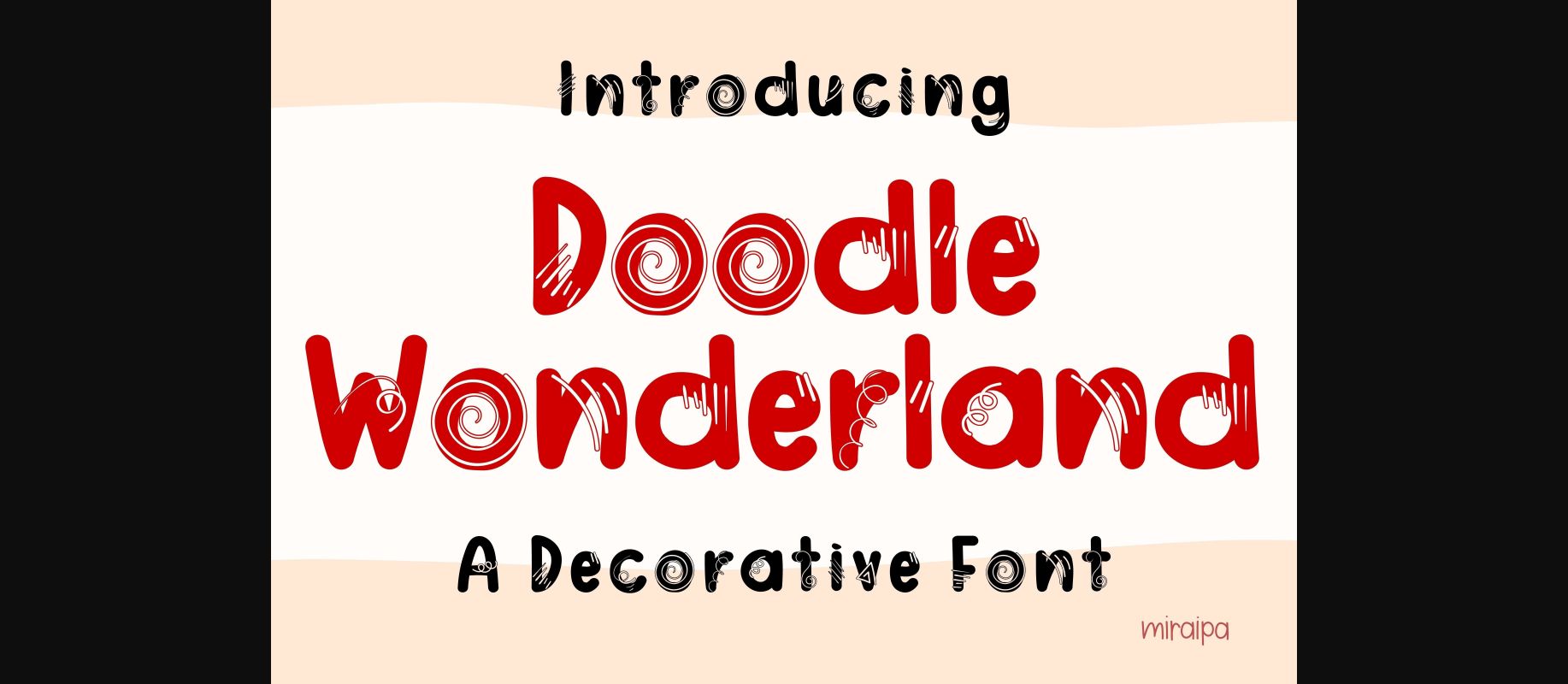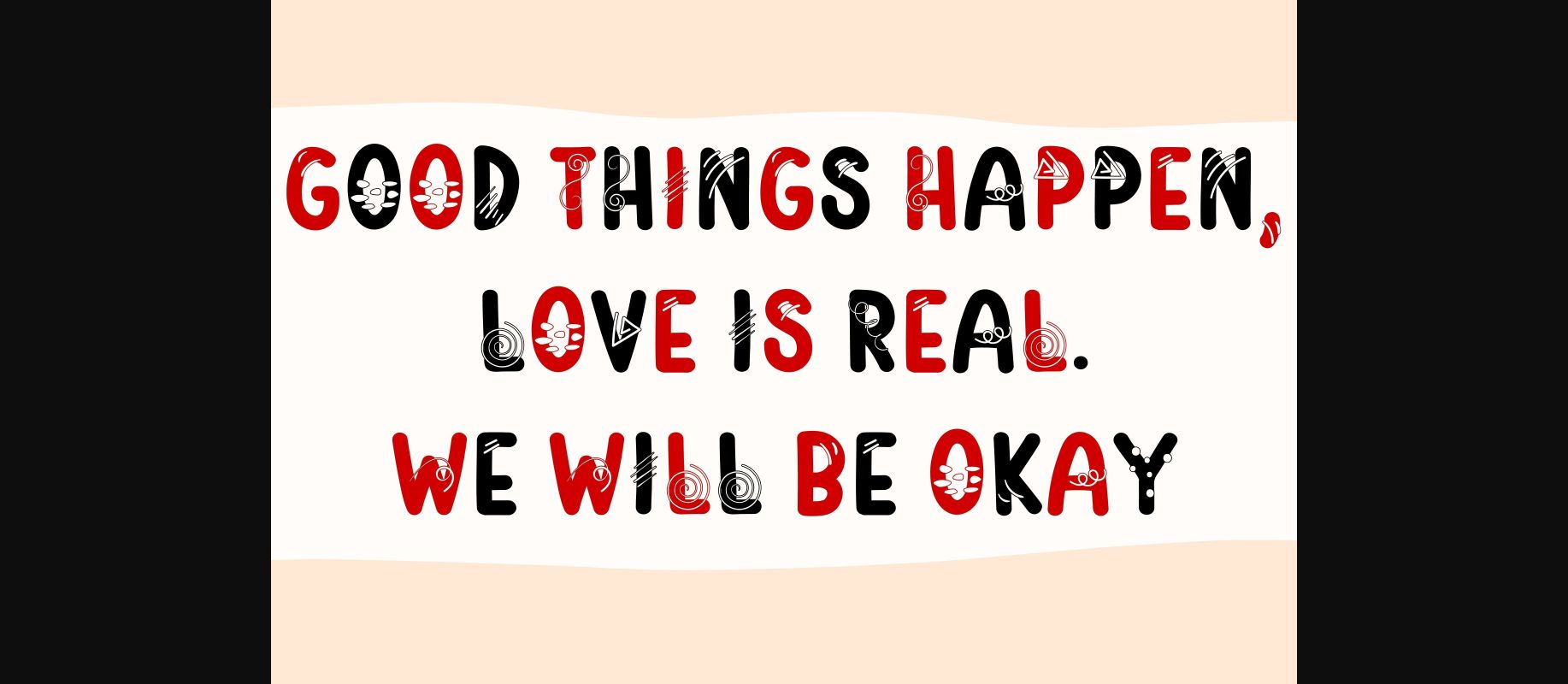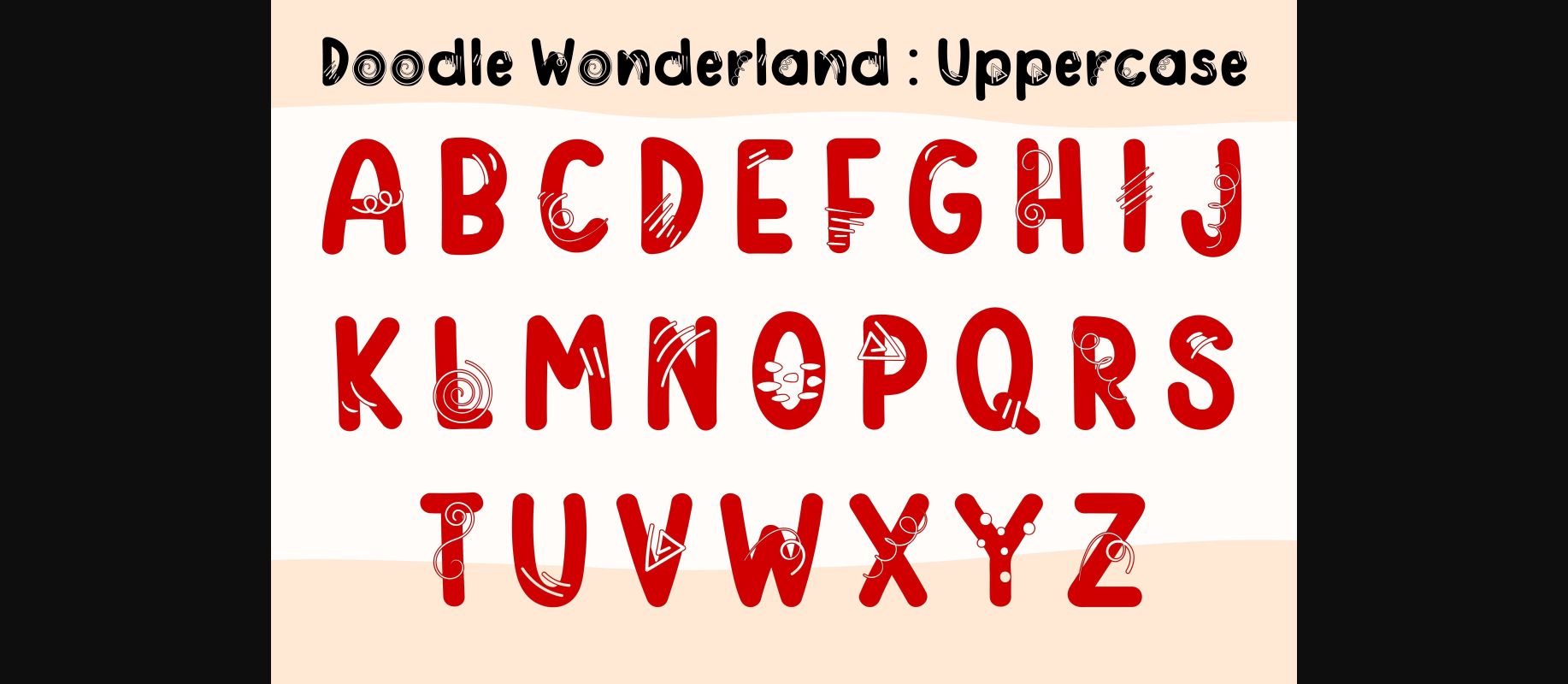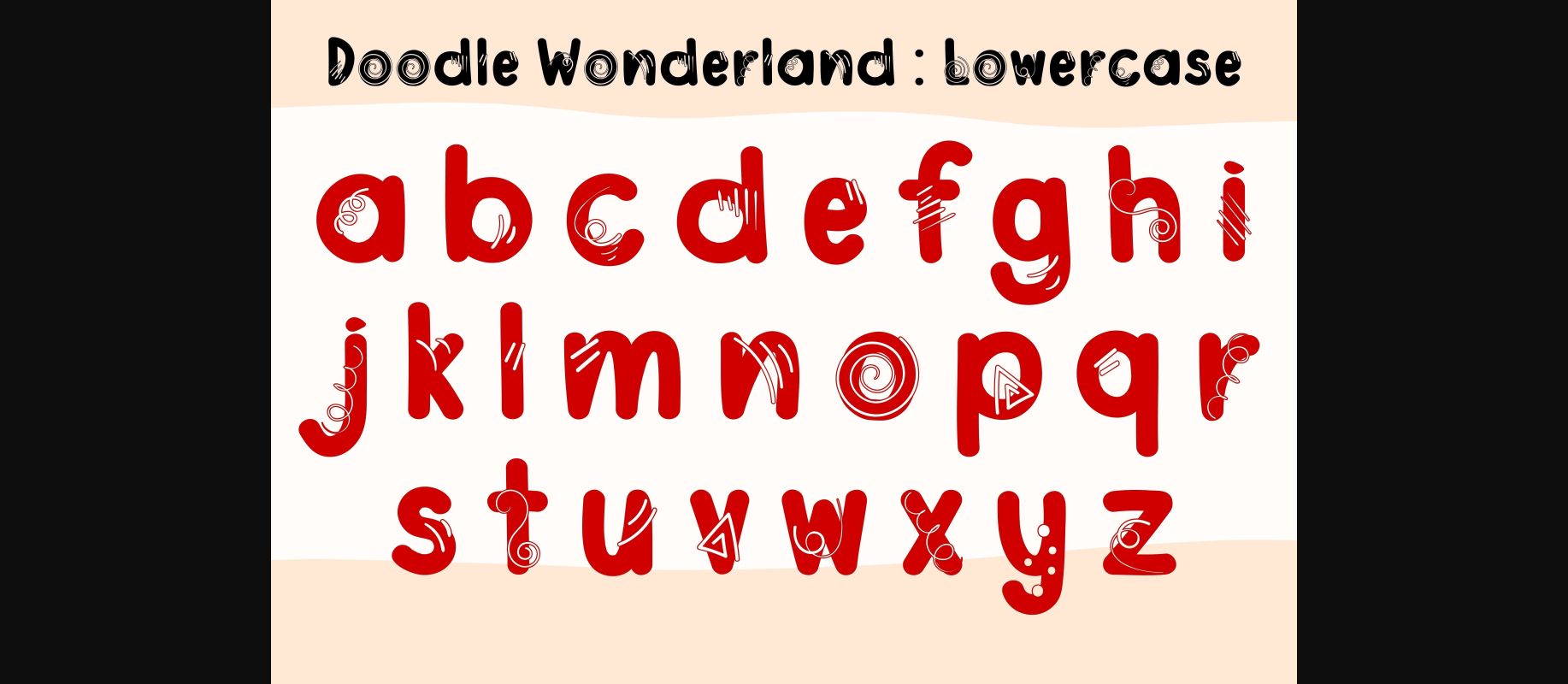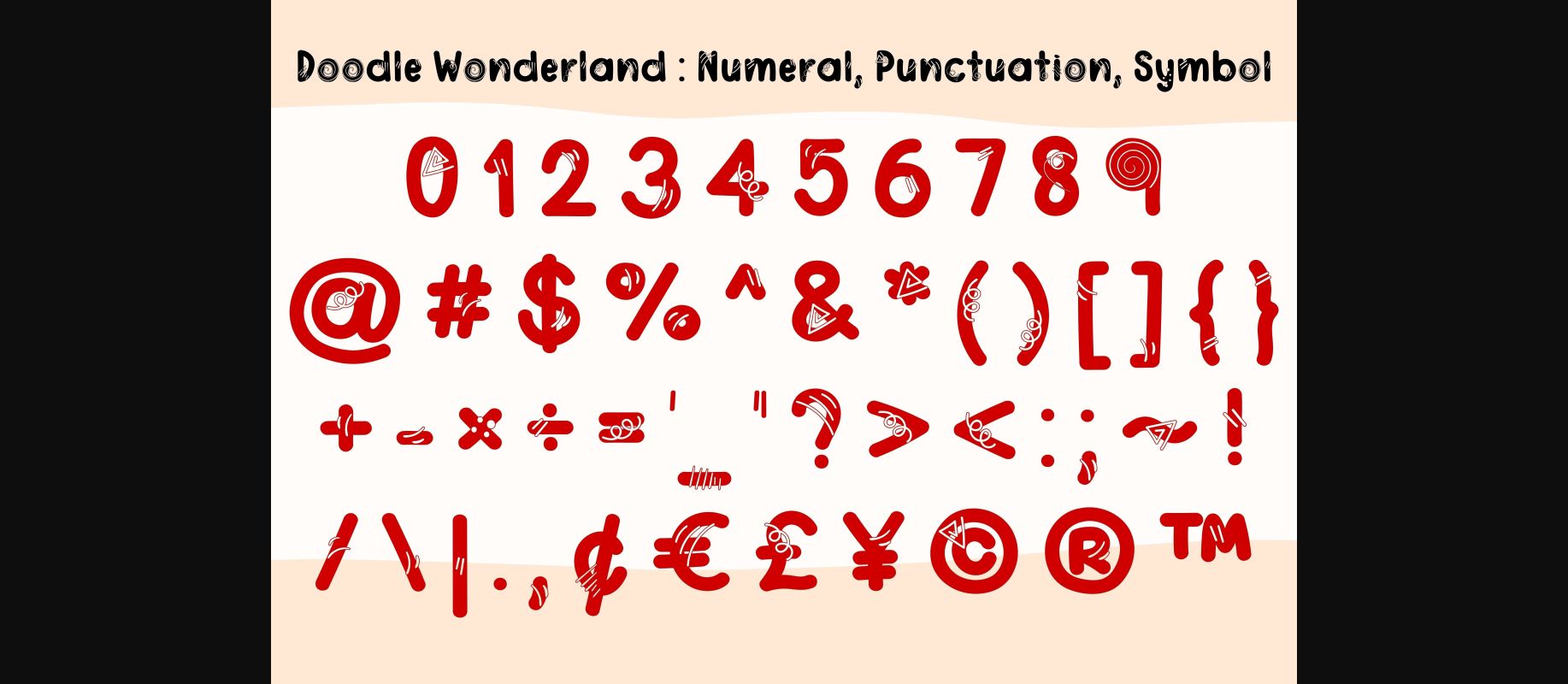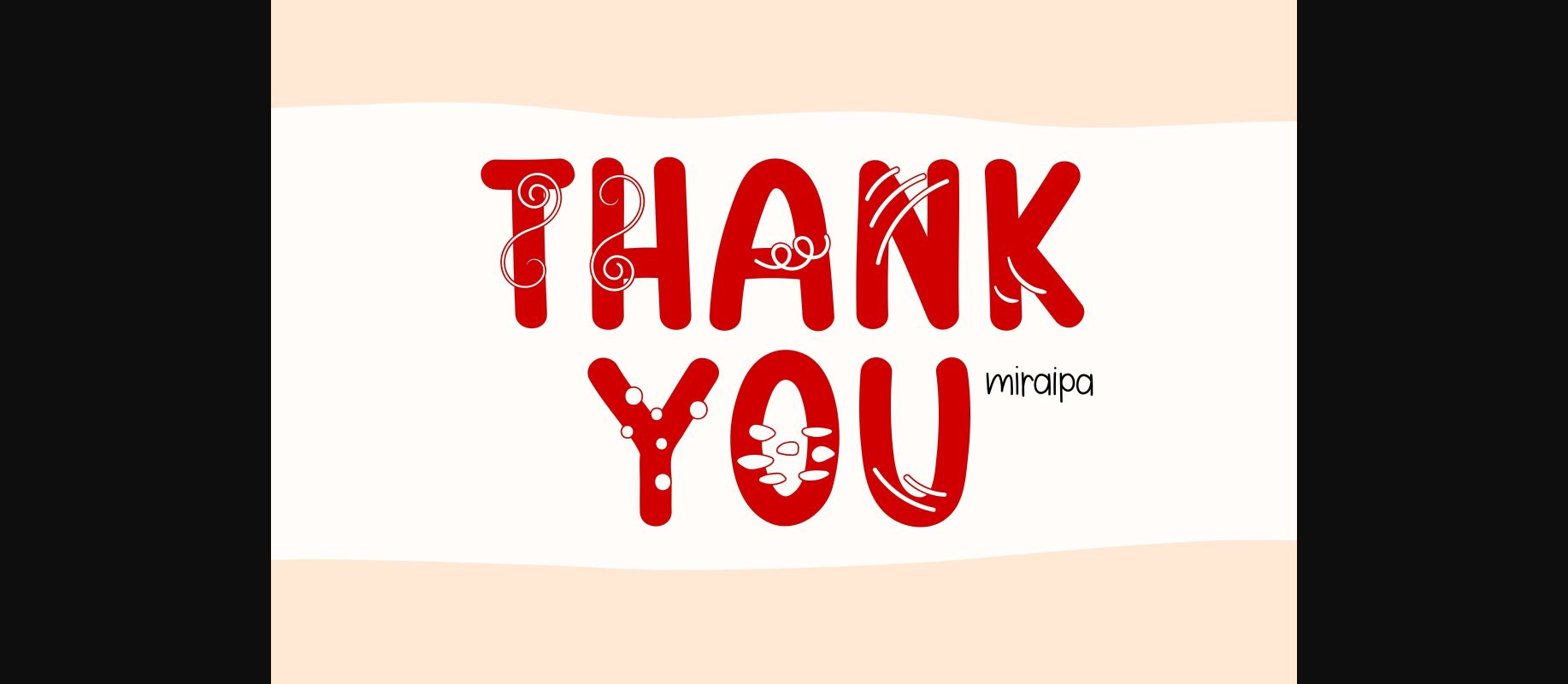
Doodle Wonderland Font
About Doodle Wonderland Font
Doodle Wonderland is a decorative font designed in a friendly and playful style. It would be awesome for mom projects, weddings, back-to-school, party decorations, invitations, posters, blogs, clothing, greeting cards, social media posts, or anything that needs a friendly touch. Add it now to your fonts library, and it will bring any of your DIY projects to life.